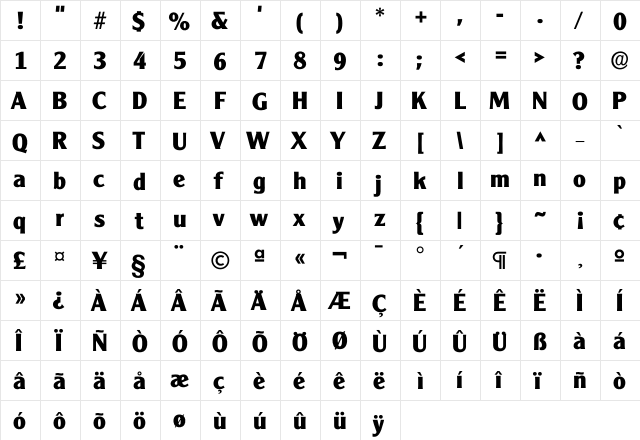
Cleaxg Bold
Design Context for Cleaxg Typeface
Cleaxg is a composed and adaptable typeface that performs quietly and consistently across a wide range of design contexts. The heavy weight commands attention and anchors typographic hierarchies.